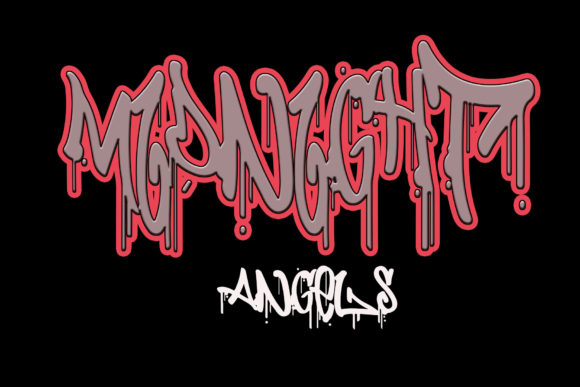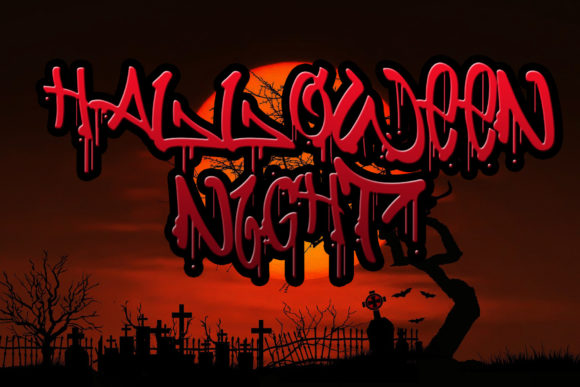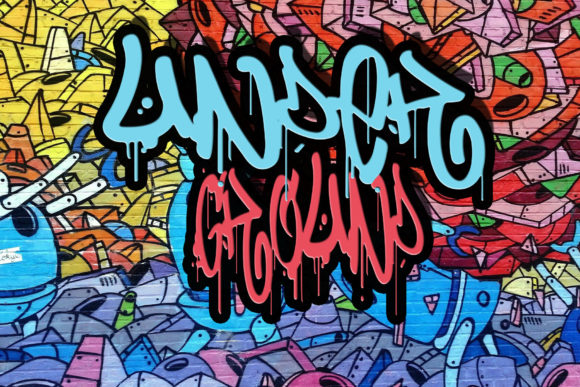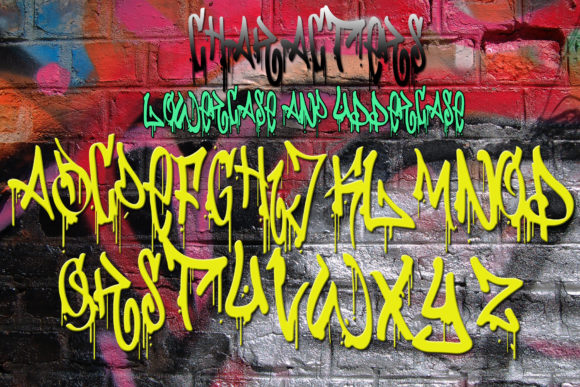
Introduction to Project Kuys Font
Project Kuys is an awesome, graffiti-styled display font that has a street art vibe.
This font is suitable for designs such as t-shirts, sportswear, logos, advertisements, clothing, and more .
Project Kuys Font offers exceptional quality and versatility, making it a valuable addition to your design toolkit. Whether you’re creating for personal projects or commercial use, Project Kuys Font delivers professional results.